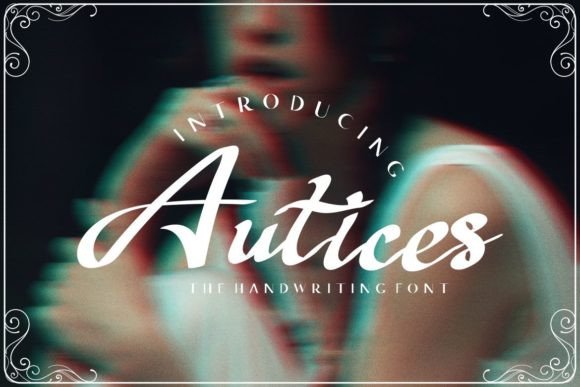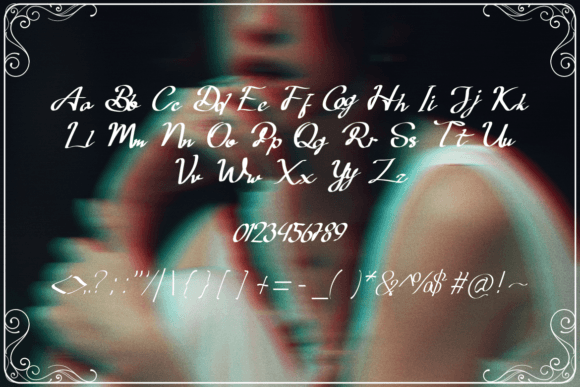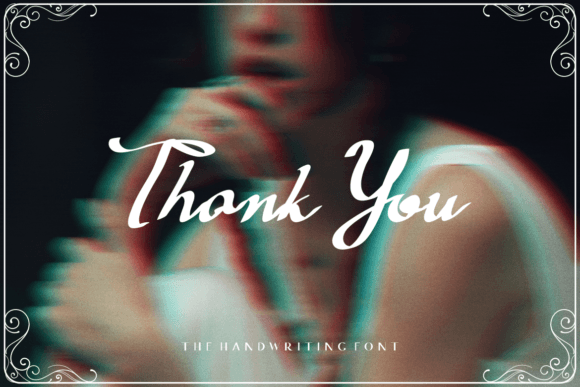
Autices Font
Add a cool and stylish touch with the Autices font. This handwritten script is incredibly versatile and suitable for a wide spectrum of creative applications. Whether you’re designing logos, invitations, branding, or social media posts, this font fits perfectly.
The Autices font brings a modern flair with its smooth and flowing strokes. Its unique style adds personality and charm to any design. This makes it ideal for posters, quotes, headlines, packaging, and more.
Each character is crafted carefully to balance artistic elegance and readability. This ensures your projects look polished while remaining easy to read. The font’s style works well for both bold and subtle design elements.
Despite its stylish appearance, the Autices font is highly readable at various sizes. Whether used for eye-catching titles or elegant accents, it adapts beautifully. Its flexibility makes it a great choice for many creative projects.
Using this font will help your designs stand out with a fresh and trendy look. If you want your projects to be modern and memorable, the Autices font is an excellent choice.